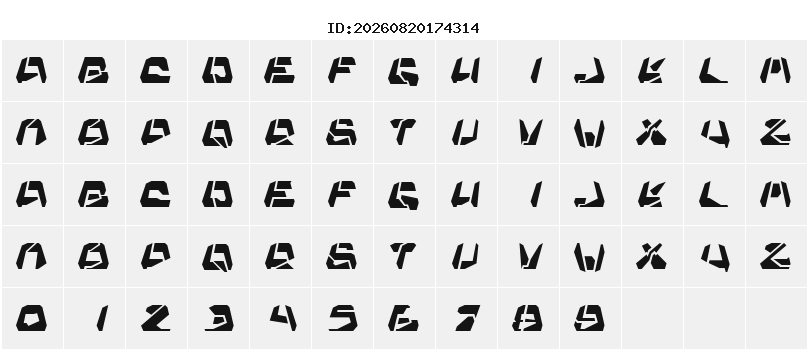
Sephus Preview
• Font Name: Sephus
• Font ID: Sephus
• Full Font Name: Sephus
• PostScript Name: Sephus
• Character Count: 67
About Sephus.ttf
Sephus.ttf is a modern, elegant sans-serif font designed for ultimate readability and visual harmony. Perfect for branding, headlines, web design, and print materials.